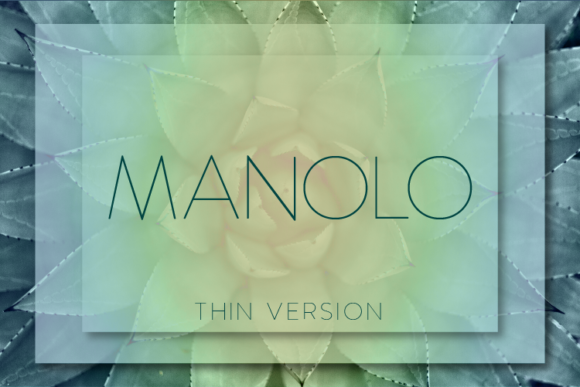
**Introducing Manolo Thin: The Font that Embodies Grace and Sophistication**
Step into the realm of typography where elegance meets simplicity with Manolo Thin, the captivating sans serif font that effortlessly elevates your designs. Crafted by the renowned Huntype, this timeless creation is a symphony of clean lines and refined curves, ideal for a multitude of creative expressions.
Whether you're a seasoned designer or a typography enthusiast, Manolo Thin will ignite your imagination and add an air of sophistication to your projects. Its versatility knows no bounds, seamlessly adapting to branding, websites, photography, titles, quotes, and beyond.
With Manolo Thin at your fingertips, you'll effortlessly craft designs that command attention and leave a lasting impression. Its delicate strokes and graceful proportions evoke a sense of understated luxury, making it the perfect choice for projects that demand a touch of class and refinement.
Embrace the transformative power of Manolo Thin and unlock the potential of your creative vision. Let its timeless elegance elevate your designs to new heights, captivating audiences with its understated charm and sophisticated allure.
**Dare to Make a Statement with Manolo Thin**
In a world of countless fonts, Manolo Thin stands out as a beacon of distinction. Its unwavering commitment to simplicity and grace empowers designers to make a bold statement without sacrificing elegance.
Imagine the impact of your branding with Manolo Thin as its cornerstone. Its clean lines and effortless readability ensure that your message is conveyed with clarity and impact. Websites adorned with Manolo Thin exude an air of professionalism and sophistication, inviting users to engage with your content.
For photographers seeking to elevate their images, Manolo Thin serves as the perfect accompaniment. Its understated presence complements the beauty of your shots, adding a touch of refinement without overwhelming the subject.
Elevate your designs to new heights and make a statement that resonates with sophistication and grace. Manolo Thin is your gateway to a world of endless creative possibilities.